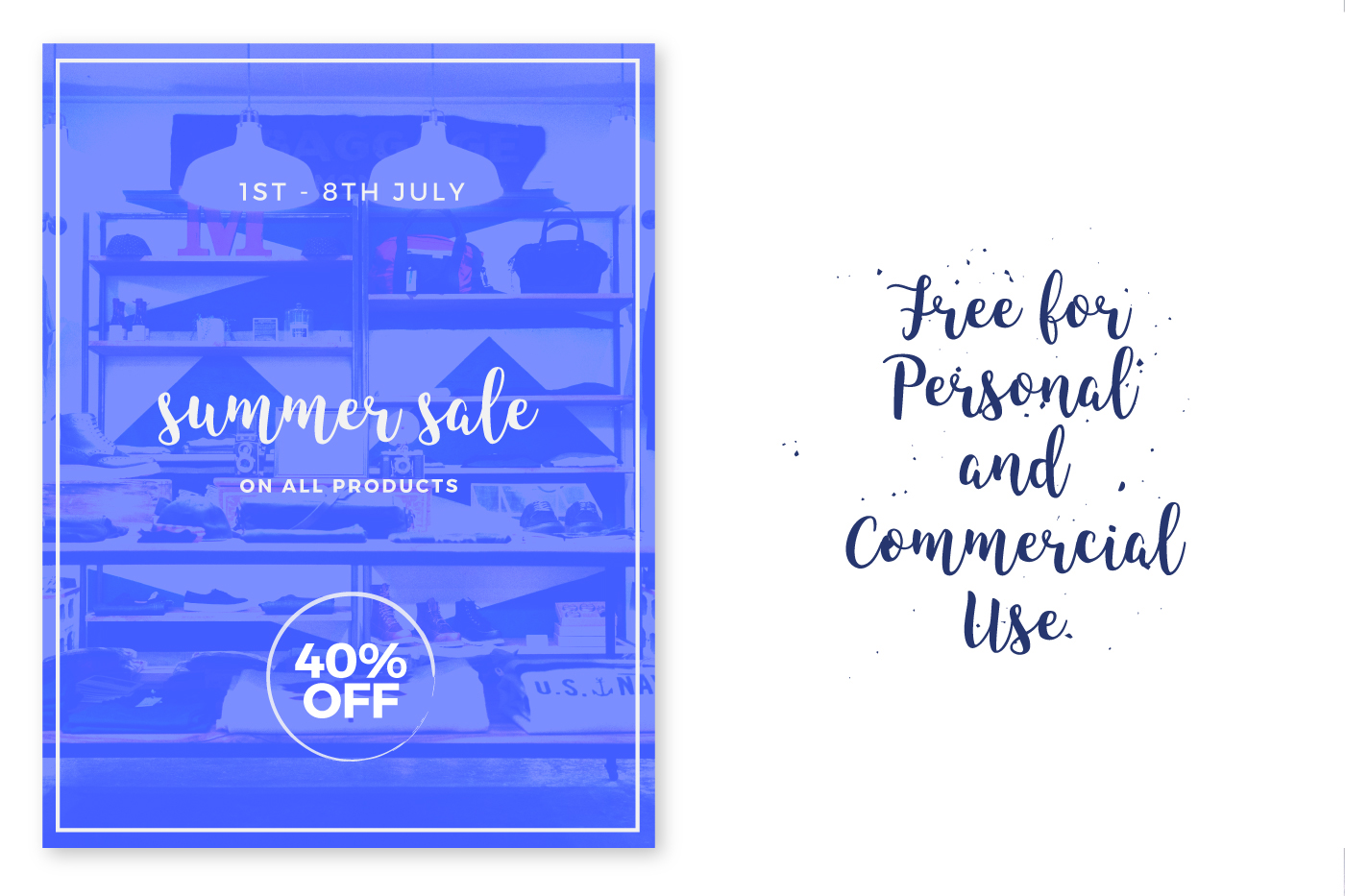
King Basil Lite Font . The free king basil lite font is a beautiful handmade brush typeface created by the talented missy meyer. The free king basil lite font is a beautiful handmade brush typeface created by the talented missy meyer. The free king basil lite font is a beautiful handmade brush typeface created by the talented missy meyer. King basil lite font family series mainly provide regular and other font styles. This font contains uppercase a. King basil is the perfect font for all your fun designs. King basil lite is the perfect font for all your fun designs. View font details, character map, custom preview, downloads,. The font subfamily is regular. The king basil font was designed by missy meyer.
The free king basil lite font is a beautiful handmade brush typeface created by the talented missy meyer. The king basil font was designed by missy meyer. The font subfamily is regular. This font contains uppercase a. King basil lite font family series mainly provide regular and other font styles. The free king basil lite font is a beautiful handmade brush typeface created by the talented missy meyer. King basil lite is the perfect font for all your fun designs. The free king basil lite font is a beautiful handmade brush typeface created by the talented missy meyer. View font details, character map, custom preview, downloads,. King basil is the perfect font for all your fun designs.
King Basil Lite Font This font contains uppercase a. The king basil font was designed by missy meyer. The free king basil lite font is a beautiful handmade brush typeface created by the talented missy meyer. The free king basil lite font is a beautiful handmade brush typeface created by the talented missy meyer. King basil lite is the perfect font for all your fun designs. View font details, character map, custom preview, downloads,. The free king basil lite font is a beautiful handmade brush typeface created by the talented missy meyer. King basil lite font family series mainly provide regular and other font styles. The font subfamily is regular. This font contains uppercase a. King basil is the perfect font for all your fun designs.
King Basil Font UI Freebies King Basil Lite Font King basil is the perfect font for all your fun designs. The free king basil lite font is a beautiful handmade brush typeface created by the talented missy meyer. King basil lite font family series mainly provide regular and other font styles. The king basil font was designed by missy meyer. King basil lite is the perfect font for all. King Basil Lite Font.
LNTHKing Basil Lite font details King Basil Lite Font The free king basil lite font is a beautiful handmade brush typeface created by the talented missy meyer. View font details, character map, custom preview, downloads,. The free king basil lite font is a beautiful handmade brush typeface created by the talented missy meyer. King basil lite is the perfect font for all your fun designs. King basil lite font. King Basil Lite Font.
King Basil Free Brush Font The Creative Bits King Basil Lite Font The free king basil lite font is a beautiful handmade brush typeface created by the talented missy meyer. King basil lite is the perfect font for all your fun designs. The free king basil lite font is a beautiful handmade brush typeface created by the talented missy meyer. The free king basil lite font is a beautiful handmade brush typeface. King Basil Lite Font.
KingBasilLite.otf Lazy Dog, Lite, Basil, Word Search Puzzle, Math King Basil Lite Font The free king basil lite font is a beautiful handmade brush typeface created by the talented missy meyer. The free king basil lite font is a beautiful handmade brush typeface created by the talented missy meyer. The free king basil lite font is a beautiful handmade brush typeface created by the talented missy meyer. The font subfamily is regular. King. King Basil Lite Font.
King Basil Font Free Download King Basil Lite Font The free king basil lite font is a beautiful handmade brush typeface created by the talented missy meyer. The king basil font was designed by missy meyer. King basil lite font family series mainly provide regular and other font styles. View font details, character map, custom preview, downloads,. The free king basil lite font is a beautiful handmade brush typeface. King Basil Lite Font.
Best Cursive Fonts for Graphic Designers King Basil Lite Font The free king basil lite font is a beautiful handmade brush typeface created by the talented missy meyer. The free king basil lite font is a beautiful handmade brush typeface created by the talented missy meyer. King basil is the perfect font for all your fun designs. King basil lite is the perfect font for all your fun designs. View. King Basil Lite Font.
DLOLLEYS HELP King Basil Free Brush Font King Basil Lite Font The free king basil lite font is a beautiful handmade brush typeface created by the talented missy meyer. The king basil font was designed by missy meyer. The free king basil lite font is a beautiful handmade brush typeface created by the talented missy meyer. View font details, character map, custom preview, downloads,. King basil lite is the perfect font. King Basil Lite Font.
Ще 10 БЕЗКОШТОВНИХ шрифтів, які легко скачати і використовувати King Basil Lite Font View font details, character map, custom preview, downloads,. The free king basil lite font is a beautiful handmade brush typeface created by the talented missy meyer. The free king basil lite font is a beautiful handmade brush typeface created by the talented missy meyer. The font subfamily is regular. King basil lite is the perfect font for all your fun. King Basil Lite Font.
199 King Basil with Alternates Embroidery Font Applique & Embroidery King Basil Lite Font The king basil font was designed by missy meyer. The free king basil lite font is a beautiful handmade brush typeface created by the talented missy meyer. The free king basil lite font is a beautiful handmade brush typeface created by the talented missy meyer. King basil lite is the perfect font for all your fun designs. The free king. King Basil Lite Font.